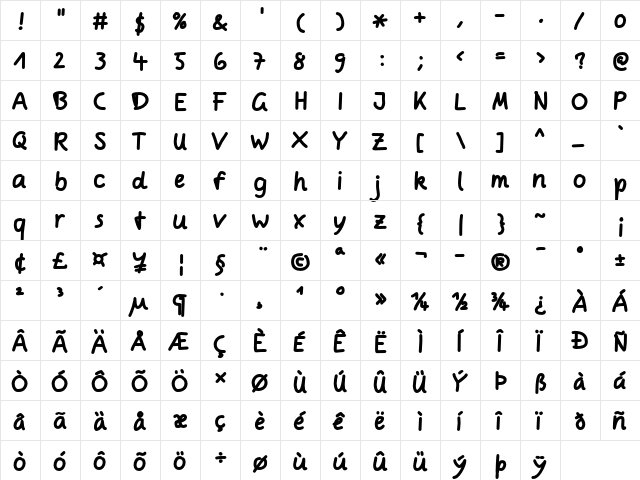
Comic Jens Bold
| Foundry | Jens Kutilek |
| Designer | Jens Kutilek |
Design Context for Comic Jens Typeface
Comic Jens has an approachable, lighthearted character — its loose, expressive forms are well-suited to children's content, casual branding, and fun-first design.
Font Pairing: Pairs well with a rounded or humanist sans for body copy, maintaining the friendly tone without relying on Comic Jens to carry extended reading.
Pro Tip: Avoid using Comic Jens for long passages of text — it works best for headlines, labels, and short calls to action.